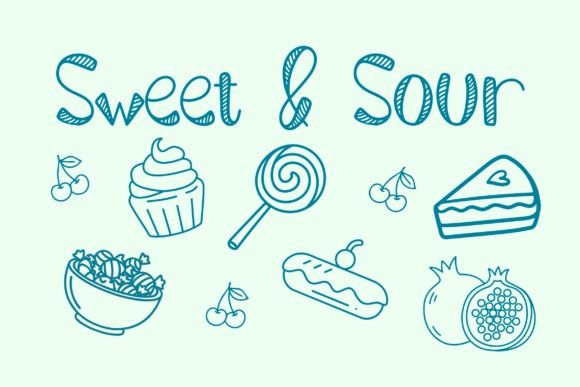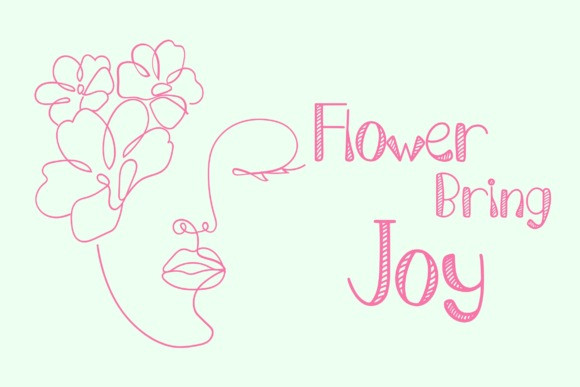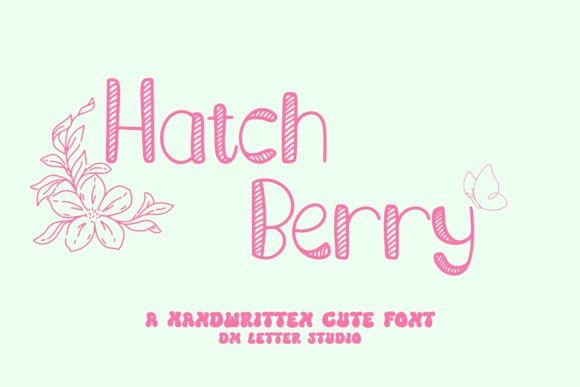
Hatch Berry Font
Hatch Berry Font is a playful handwritten font designed to bring sweetness and charm into your designs. The strokes feel soft, rounded, and friendly, giving every word a cheerful handwritten personality. Its cute style makes it perfect for designs that need warmth and a lighthearted vibe.